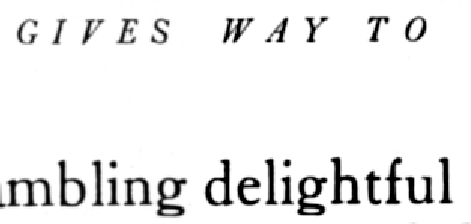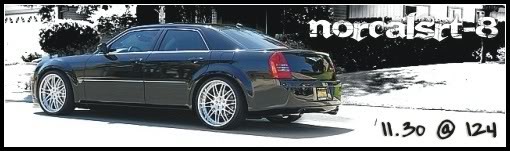
I designed my own logo a few years back, and I have no idea what font I used for it. The g I think is distinctive if that helps.
Any chance of an image that's big enough to actually see?
Unfortunately that's the only surviving copy of my logo (hosted by my smugmug) ... I wish it could be bigger (then I could use what's that font . com). I could rasterize it and enlarge it in Illustrator I suppose.
I'm just curious, how do you go about figuring out what font it is?
Honestly? It's fifteen years of designing stuff, and seeing stuff that other people have designed, plus (and this is the important bit) being really, really geeky about knowing which font has been used in jobs that you see by other designers.
I'm pretty sure I don't have that particular font installed on my system, but I do know which of my installed fonts are cursive or handwriting fonts, so simply launching FontBook, changing the sample text to 'Custom' and then cycling through all the possibly relevant fonts normally does the trick.
Can anyone help me identify this font please? It is taken from this page on apple's site.
Can anyone help me identify this font? its from my client's logo, and I need the font for redesigning his website...
Here's a scan of something that was printed in 1918....that squashed "g" doesn't match anything in my collection and neither does the italics at the top
any ideas?
Here's a scan of something that was printed in 1918....that squashed "g" doesn't match anything in my collection and neither does the italics at the top
any ideas?
I'm pretty sure that's Times, and the variations from what you'll see on your computer screen are artefacts of the printing process at the time, rather than intentional font design.
Thanks for the input. Times was my first thought too.....and prob what I'll use.....but when I typed out a few lines I noticed some differences, especially with the italics so I wondered if it was something else
Looking for this font from this pict!!!
Upper right corner font of NORCALSRT-8!!!